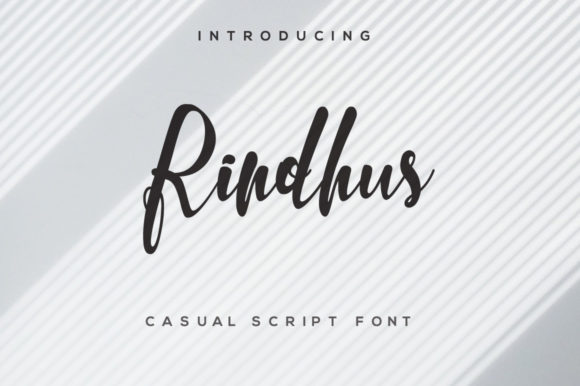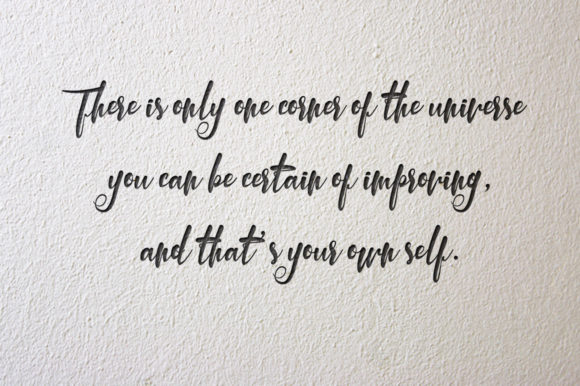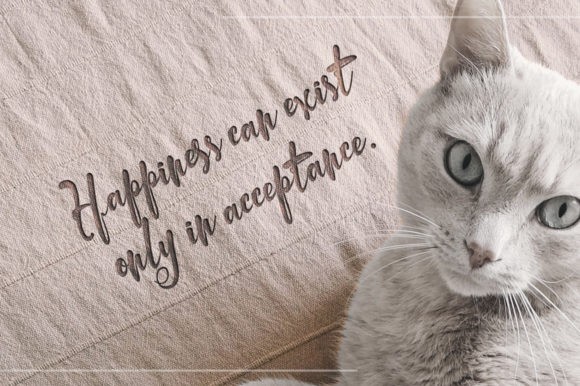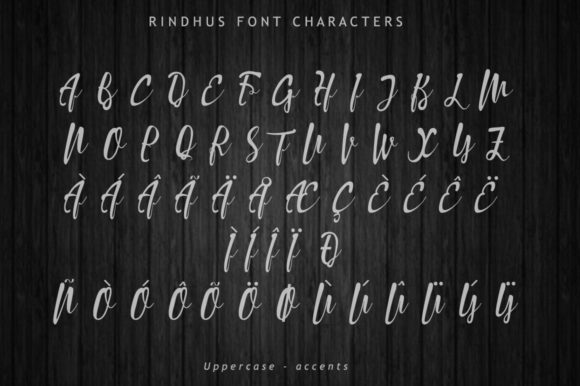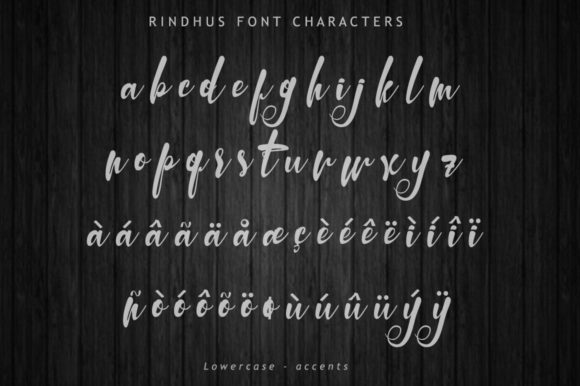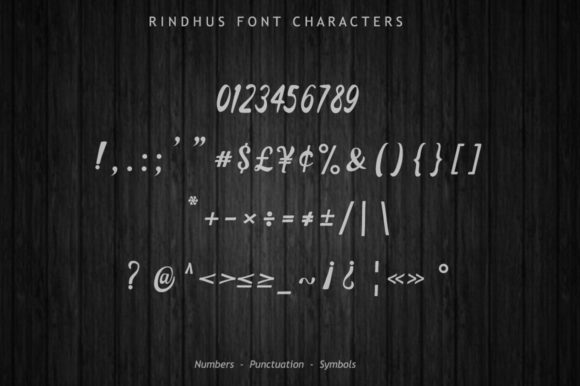
Rindhus Font
About Rindhus Font
Rindhus is a casual script font with artistic curves. It’s an excellent choice for quotes, logotypes, branding, product packaging, wedding invites and much more.